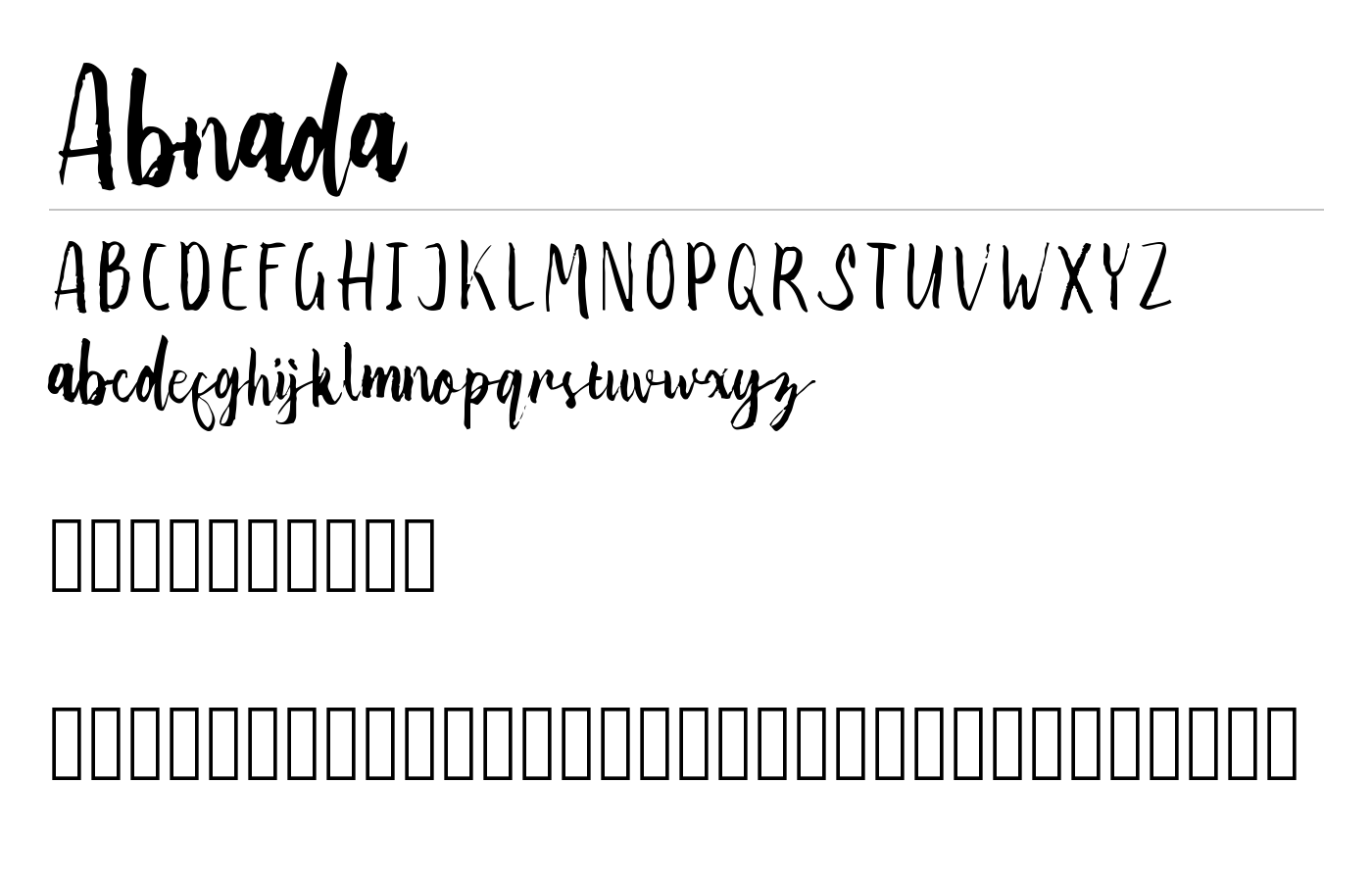
Abnada is a lively handwritten script font with bold, brush-like strokes that give it an expressive and casual feel. Its uneven, textured letterforms and mix of uppercase and lowercase characters make it perfect for creative branding, invitations, and artistic designs where a personal, handcrafted touch is needed. This font works well for projects seeking an energetic, approachable, and slightly rustic aesthetic.
Abnada Font